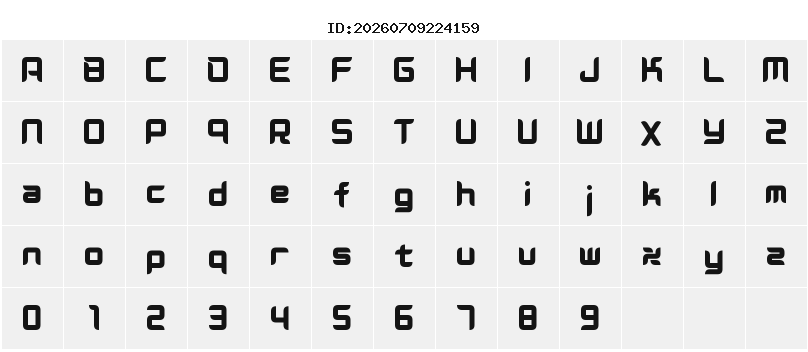
D3 Radicalism Preview
• Font Name: D3 Radicalism
About D3 Radicalism.ttf
D3 Radicalism.ttf is a modern, elegant sans-serif font designed for ultimate readability and visual harmony. Perfect for branding, headlines, web design, and print materials.